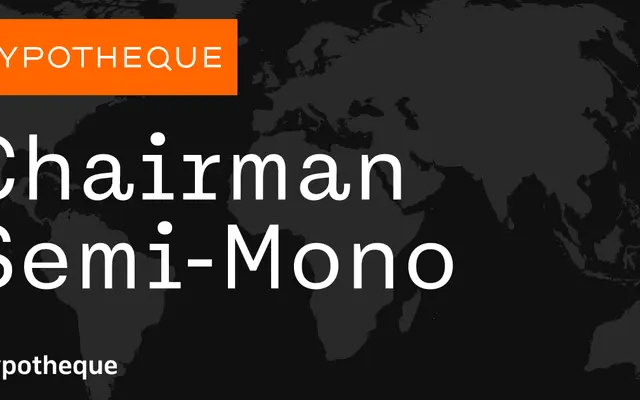
Chairman Semi-Mono specimen from Typotheque
A semi-monospaced member of Typotheque's Chairman Mono System, available in five weights with slanted companions and a variable font option.
Part of the broader Chairman Mono System alongside the proportional Text and Display cuts and the fully monospaced Chairman Mono, this semi-mono variant occupies a middle ground suited to interfaces and editorial contexts that benefit from consistent rhythm without strict fixed-width spacing. Five weights run from Light to Bold, each paired with a slanted style, and the family is also available as a variable font. The system's city-named styles hint at a wide intended usage across international editorial and digital environments.
Part of the Chairman Mono System, this is a semi-monospaced variant sitting between the fully monospaced Chairman Mono and the proportional Chairman Text and Display families, designed for coding-adjacent or editorial contexts where rhythm matters.